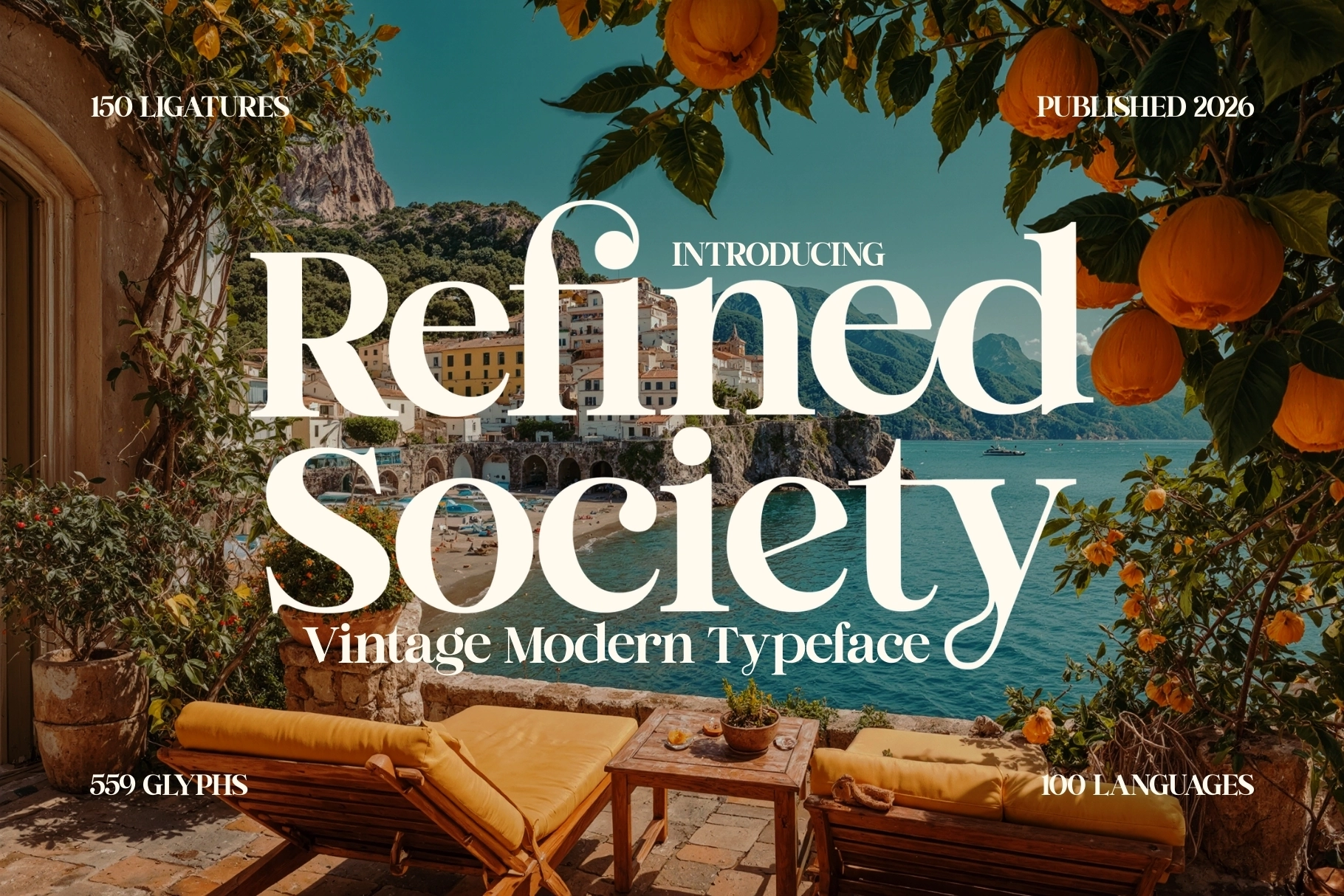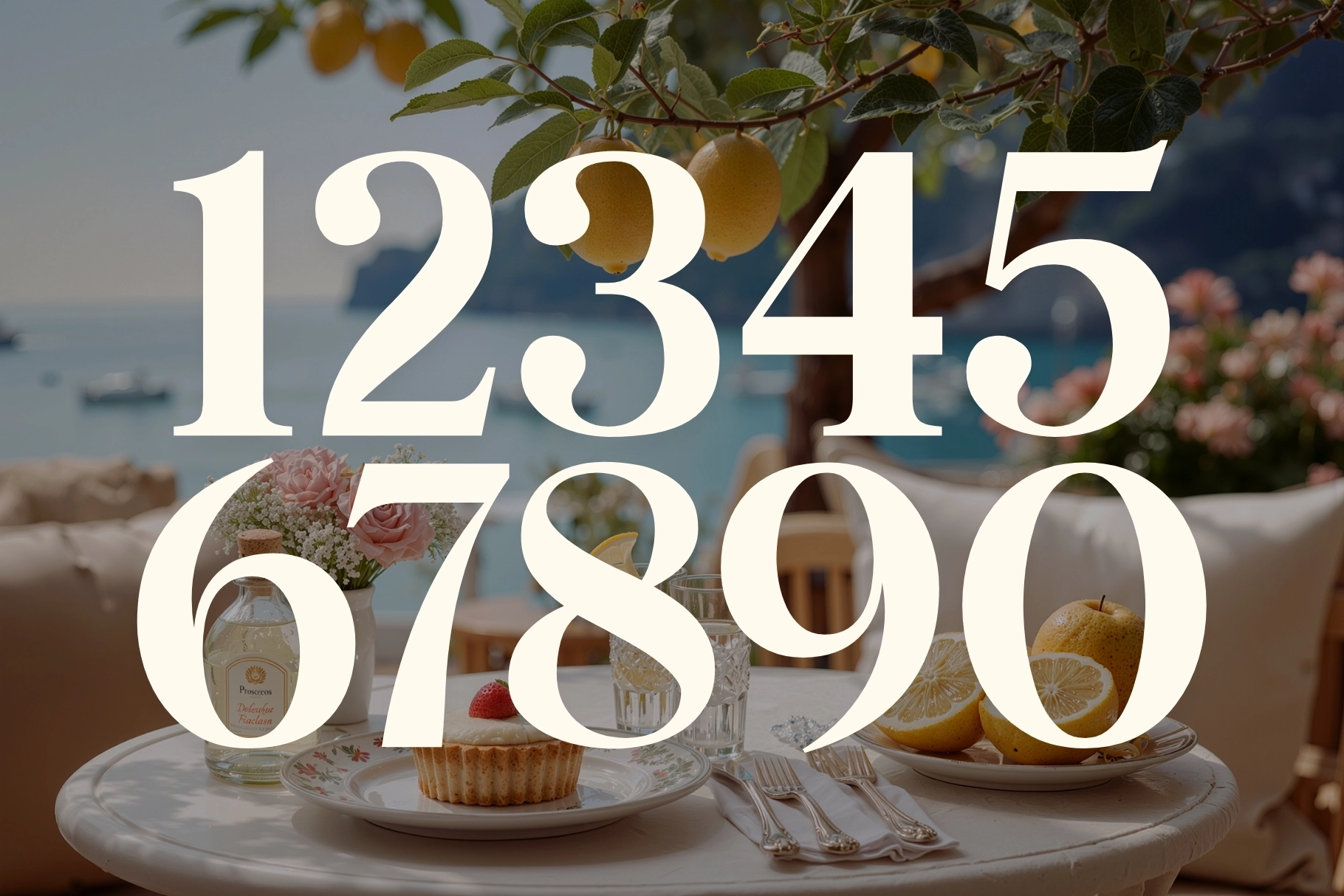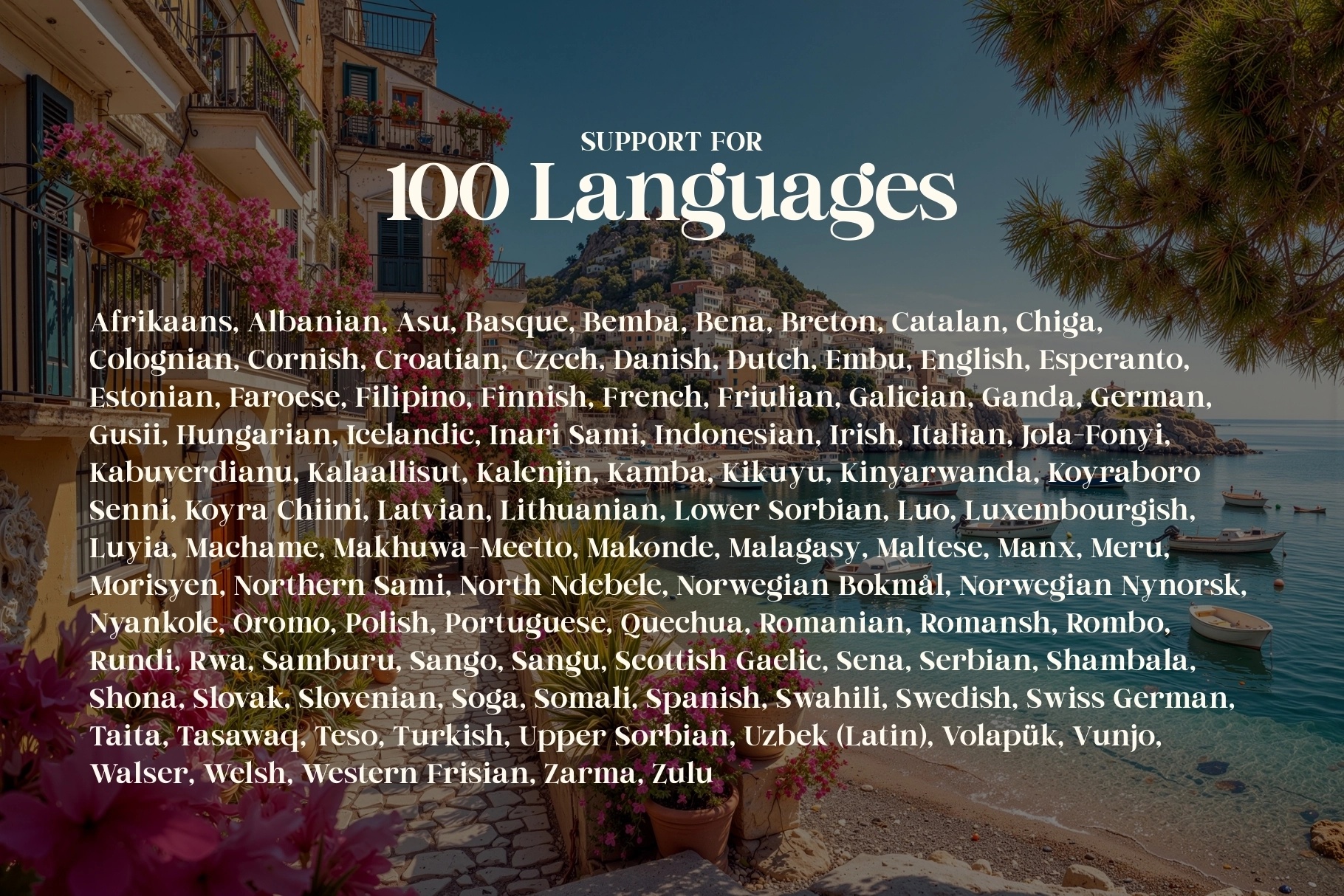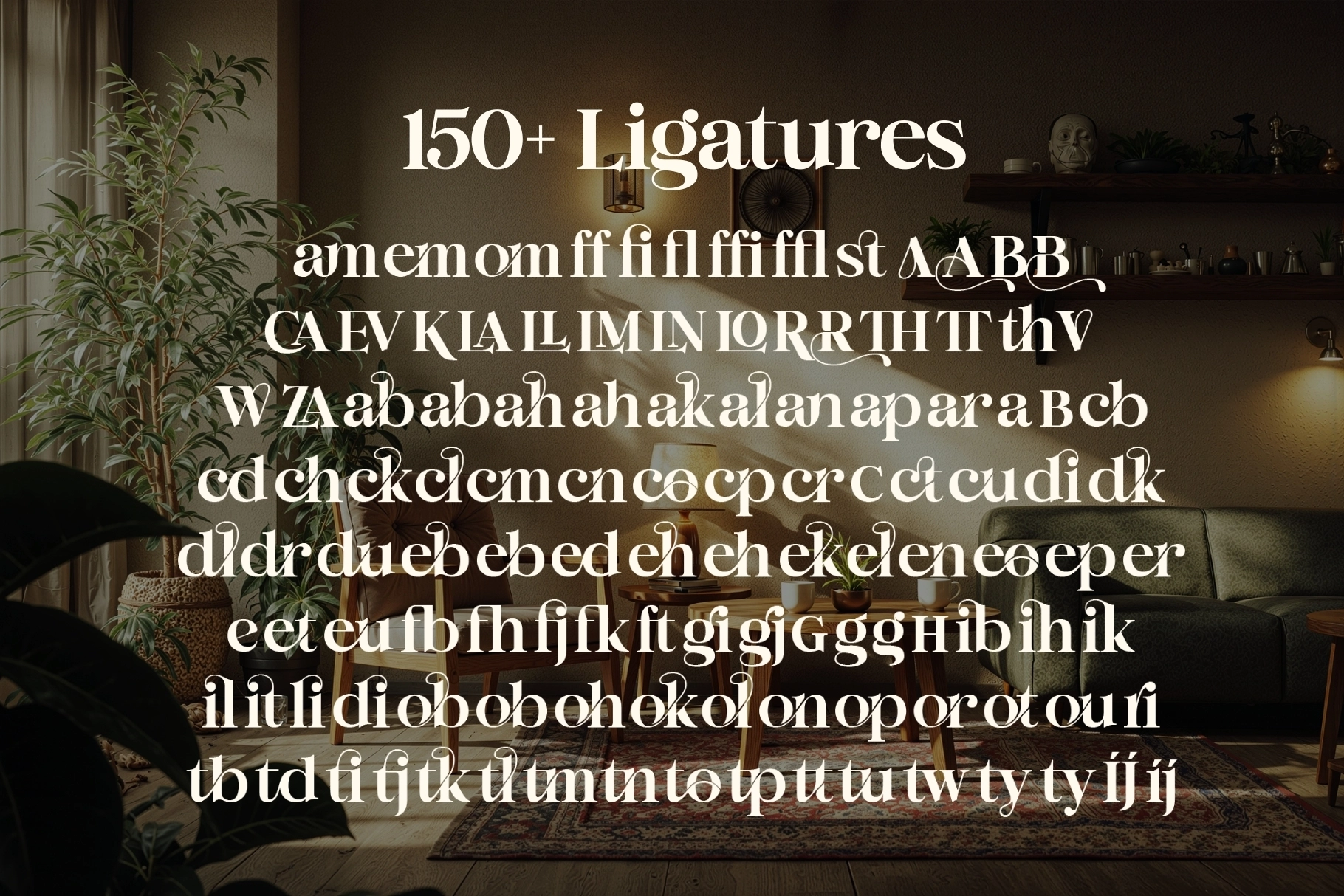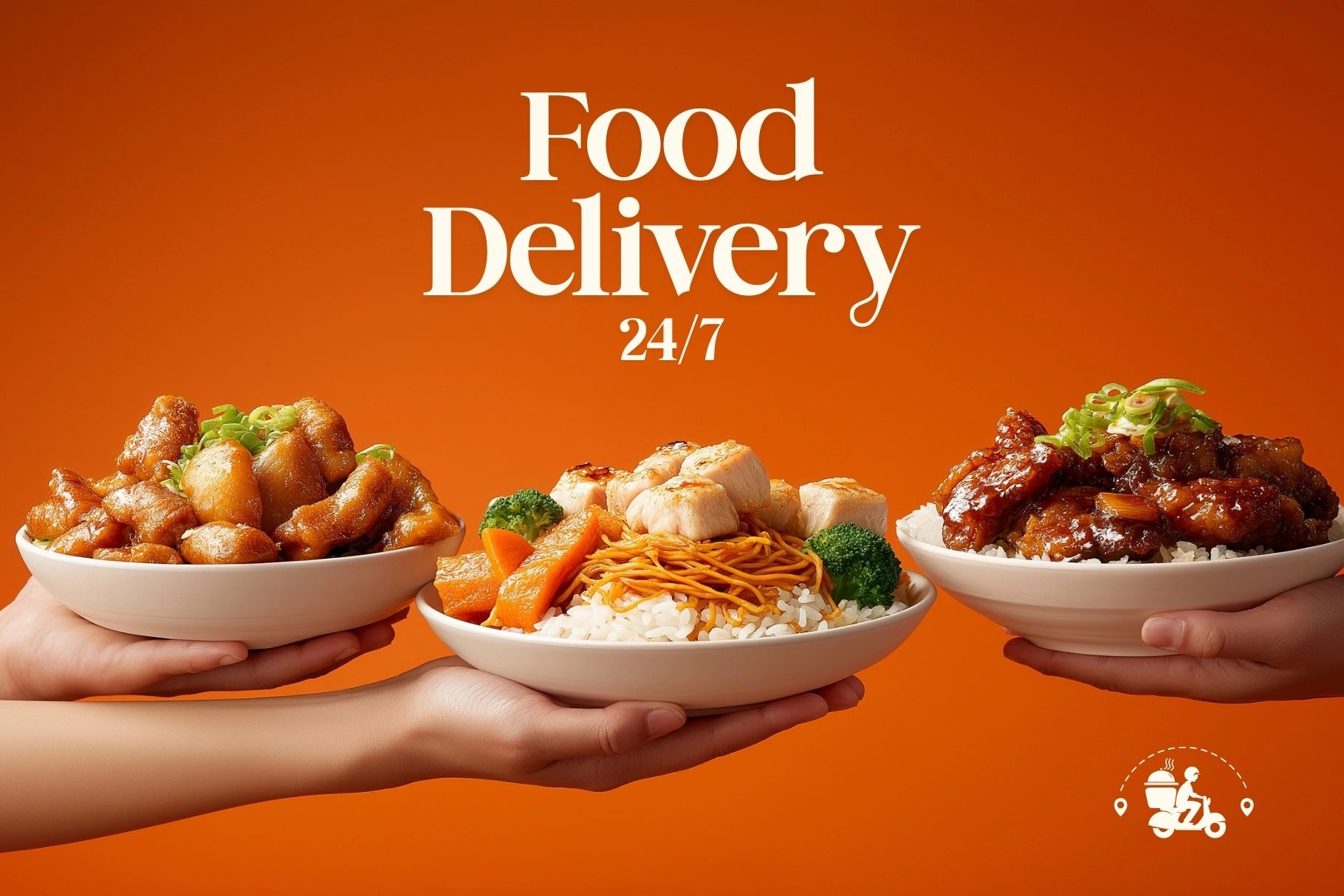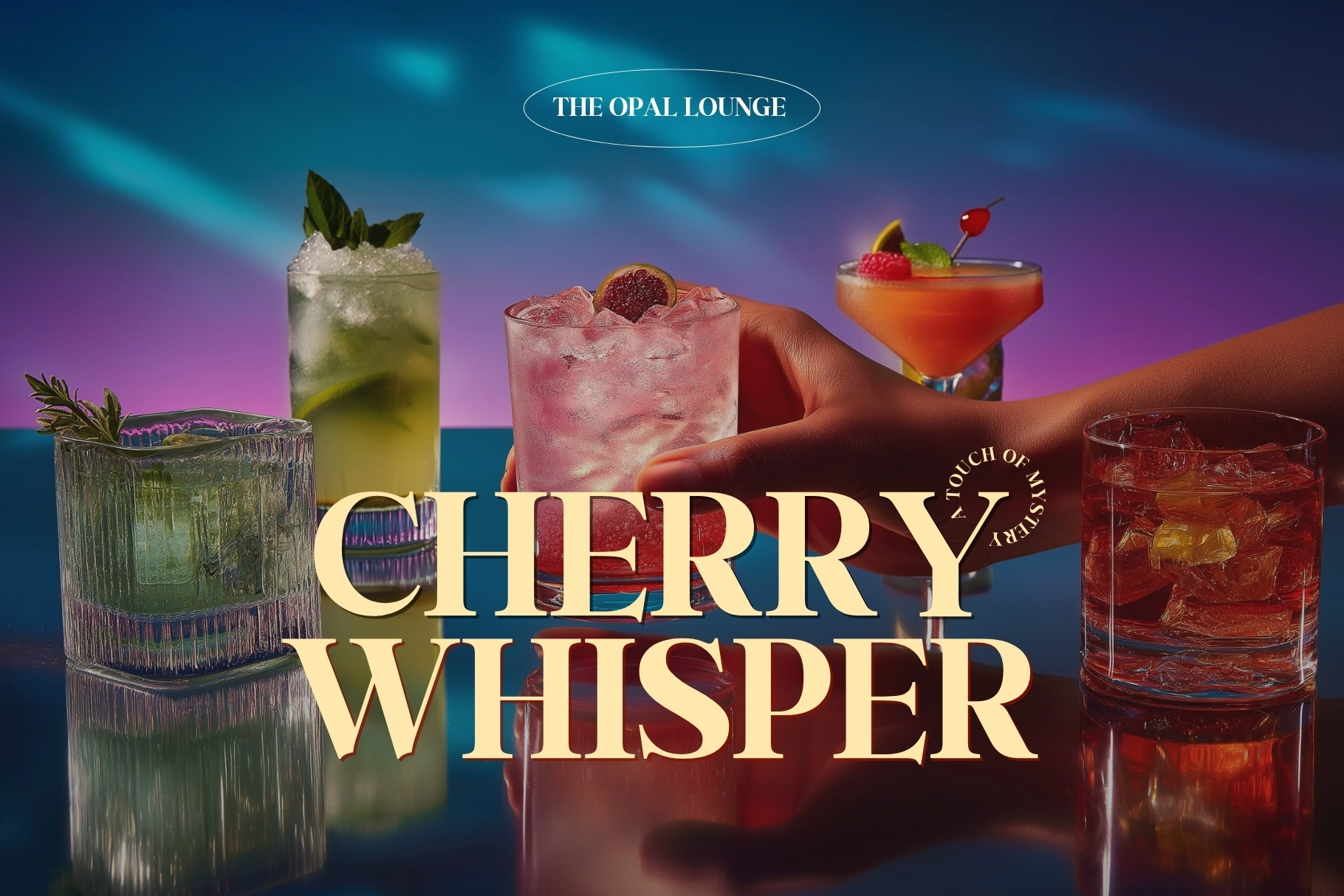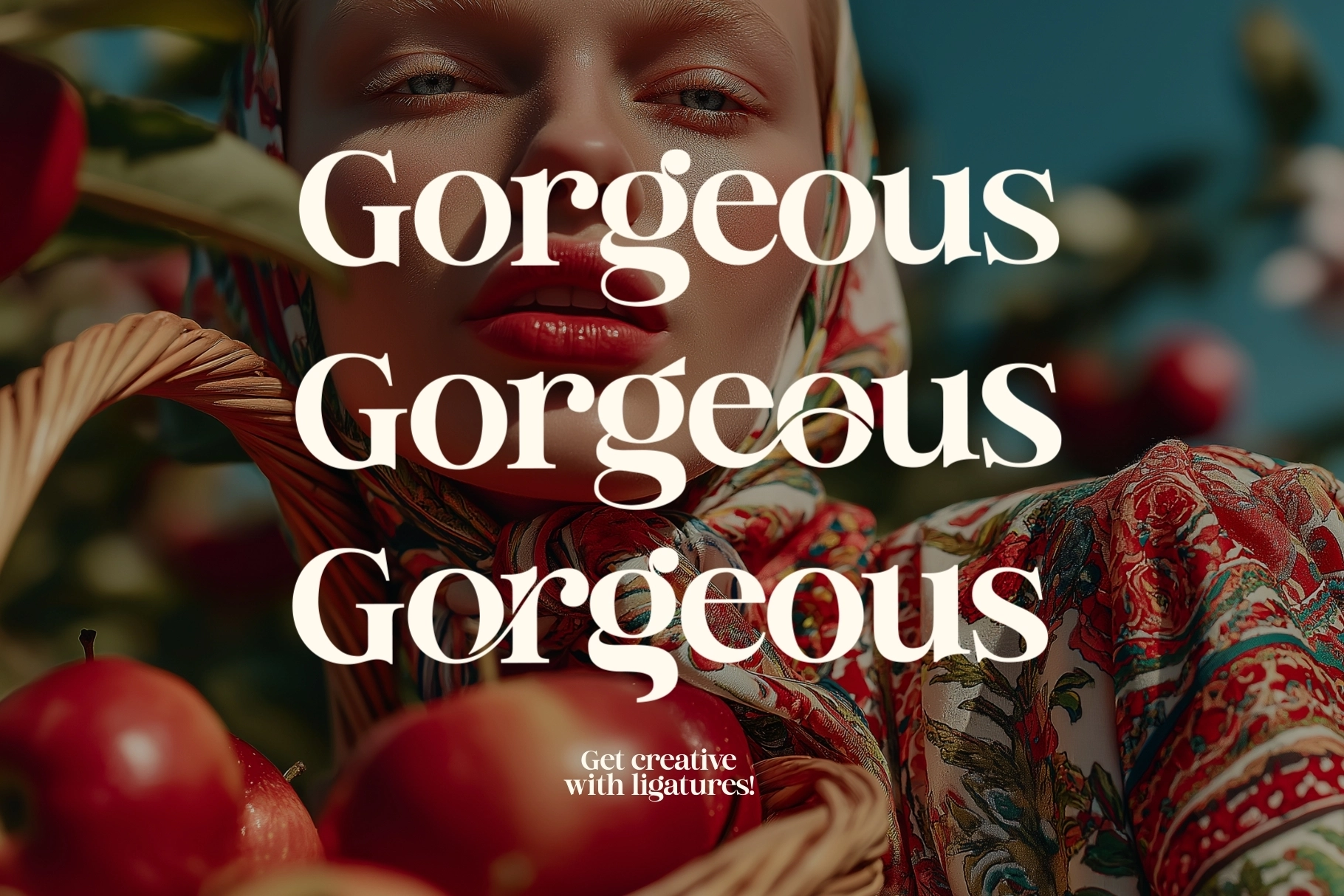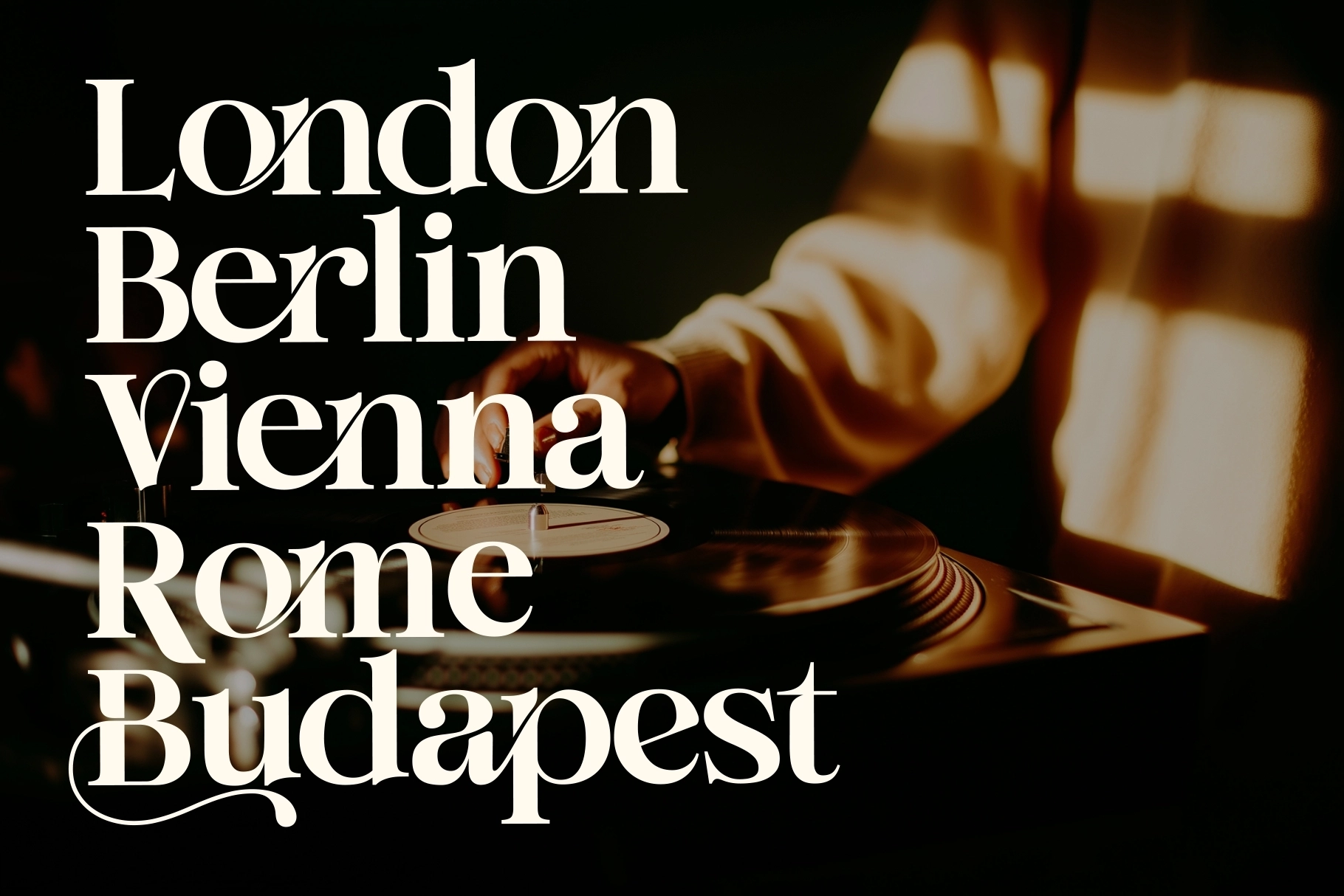
Refined Society - Elegant Vintage Serif Font
Refined Society - Elegant Vintage Serif Font is a luxurious typeface that blends timeless serif tradition with modern refinement. Designed for elegance and versatility, it delivers a polished and sophisticated look that works beautifully across a wide range of creative projects.
With graceful proportions, confident serifs, and rich typographic features, Refined Society is perfect for branding, editorial design, logos, and high-end visual identities. Its extensive set of ligatures and glyphs allows for expressive, flowing typography while maintaining excellent readability in both display and text use.
• Numbers & Punctuation
• 150 Elegant Ligatures
• 549 Glyphs